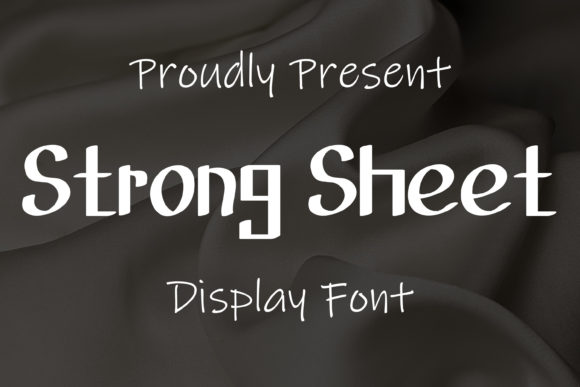
Introducing Strong Sheet: The Bold and Striking Display Font for All Your Creative Endeavors
In the world of visual expression, where words dance and ideas take form, font choice holds immense power. It's not just about conveying information; it's about captivating, engaging, and leaving an unforgettable impression. Strong Sheet, a display font crafted by scriptstrategy, is your key to unlocking a realm of visual impact and creative possibilities.
With its crisp edges, bold strokes, and confident demeanor, Strong Sheet commands attention like no other. Its simple yet striking letterforms exude a sense of strength and sophistication, making them the perfect choice for projects that demand a bold statement. Whether you're designing a cover letter that stands out, crafting a compelling presentation, or creating a captivating social media post, Strong Sheet will elevate your work to new heights.
Beyond its visual appeal, Strong Sheet is also incredibly versatile. Its clean lines and effortless readability make it suitable for a wide range of applications, from headlines that grab attention to body text that flows effortlessly. Whether you're working on a poster, a brochure, or even a website, Strong Sheet will seamlessly integrate into your design, adding a touch of sophistication and professionalism.
But Strong Sheet is more than just a versatile tool; it's an inspiration. Its bold and confident strokes ignite creativity, encouraging you to push boundaries and explore new design possibilities. With Strong Sheet as your font of choice, you'll find yourself crafting designs that are not just visually stunning but also emotionally resonant, leaving a lasting impression on your audience.
So why settle for ordinary fonts when you can unleash the power of Strong Sheet? Dive into a world of creativity and visual storytelling like never before. Let Strong Sheet be your weapon of choice, and watch as your designs transform into captivating masterpieces.